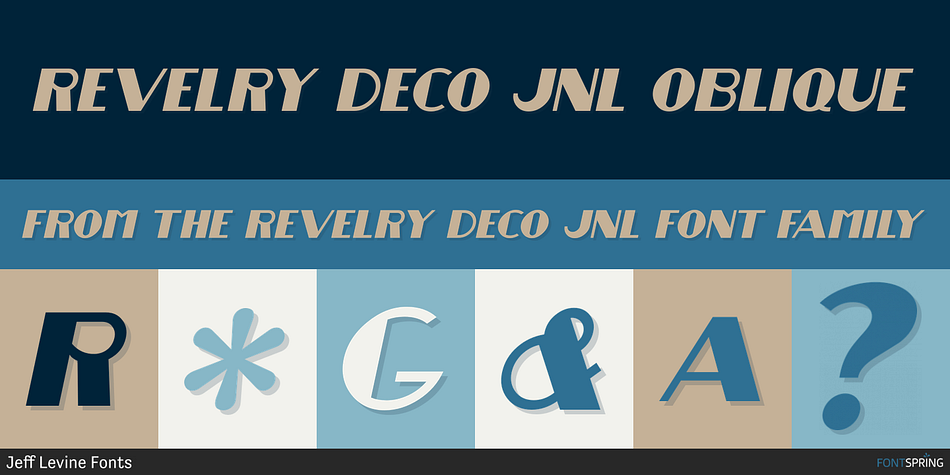
REVELRY DECO JNL OBLIQUE
Designed by Jeff Levine, Revelry Deco JNL is an art deco font family. This typeface has two styles and was published by Jeff Levine Fonts.
The namesake for this type design was the dust jacket for the 1926 book “Revelry”.
A classic Art Deco thick-and-thin design, Revelry Deco JNL is available in both regular and oblique versions.